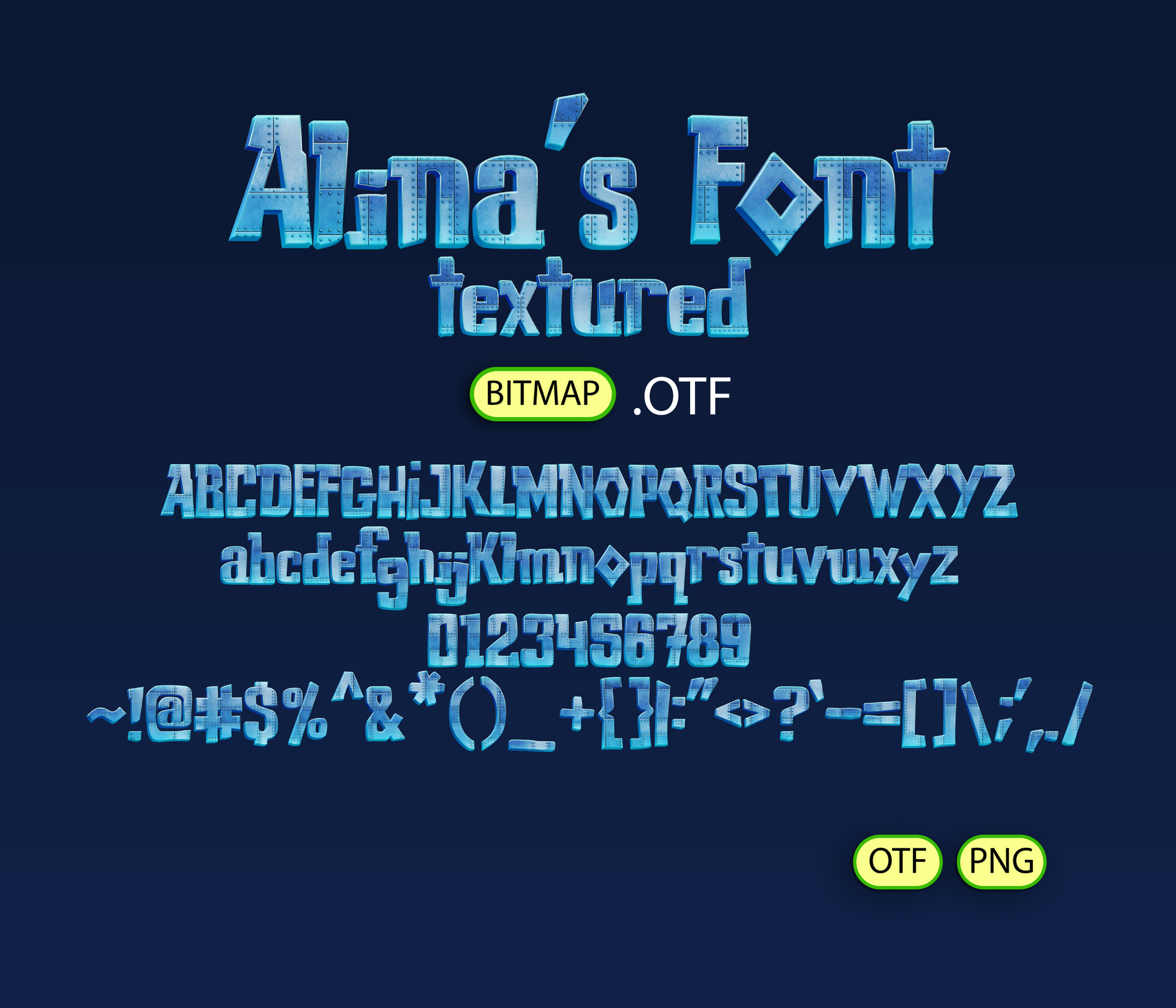
Krusty Krab Adventure Font Textured
Dive into the quirky and bustling world of the Krusty Krab with our Krusty Krab Adventure Font, capturing the essence of hilarious underwater antics and the charm of life under the sea. Perfect for fans of animated comedy, comic creators, event organizers, and designers, this font brings the dynamic, playful spirit of everyone’s favorite underwater hangout to your projects. Create cartoon-themed materials, merchandise, or digital content with the high-energy fun of the Krusty Krab’s world.
Our Krusty Krab Adventure Font features quirky, wavy lines and playful characters that reflect the comedic and lively nature of this beloved underwater eatery. Ideal for:
1. Event Promotions: Create fun and engaging invites, posters, and banners for animation screenings, underwater-themed parties, or comic conventions that capture the Krusty Krab’s unique charm.
2. Merchandise Design: Perfect for t-shirts, mugs, posters, and accessories that showcase the humorous side of life under the sea.
3. Digital Media: Enhance websites, blogs, and social media with dynamic headers and graphics that express the fun of underwater adventures.
4. Animation Content: Add authentic flair to fan art, comic strips, and creative projects inspired by the Krusty Krab’s bustling atmosphere.
5. Personal Projects: Bring underwater excitement to scrapbooking, DIY crafts, and home decor inspired by the world of animated comedy.
Our font pays tribute to the beloved world of animated underwater comedy, empowering your designs with its playful and lively spirit. Whether crafting promotional materials, designing merchandise, or adding a dynamic touch to personal projects, this font communicates the bold essence of the Krusty Krab’s quirky personality. Ready to inject underwater excitement into your creations? This font is your key to fun, impactful design.